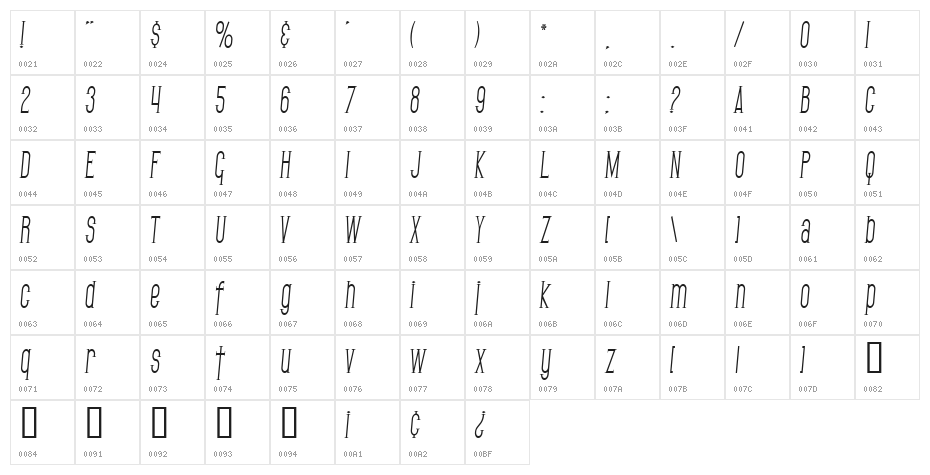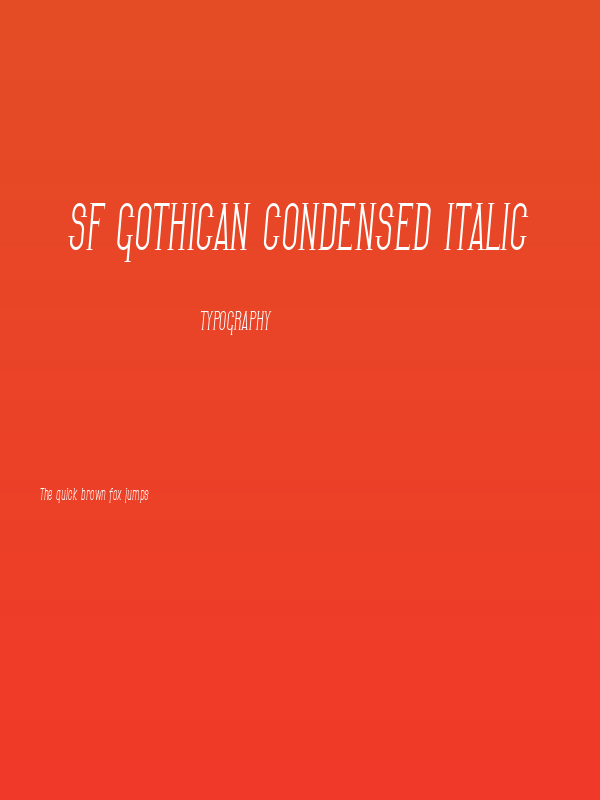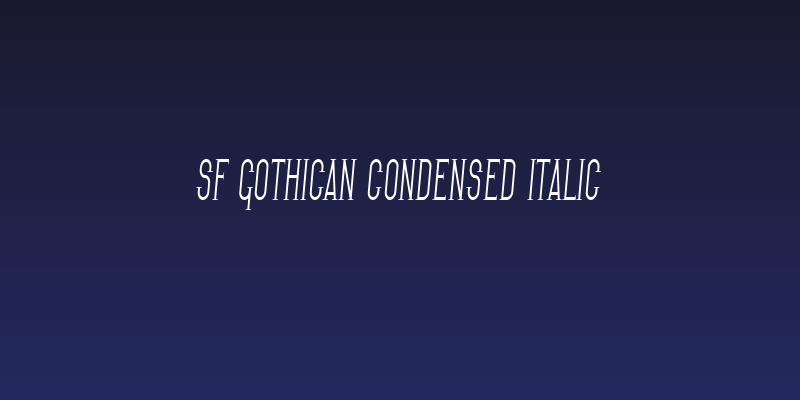
SF Gothican Condensed Italic Font
SF Gothican Condensed Italic Description
This font features a condensed and italicized style, characterized by its tall, narrow letterforms and slight slant to the right. The strokes are consistent in thickness, providing a uniform appearance across all characters. The uppercase letters are particularly elongated, giving a sense of elegance and sophistication. The lowercase letters maintain a similar narrowness, ensuring readability while preserving the overall aesthetic. Numbers are aligned with the uppercase letters in height, maintaining the font's cohesive look. Special characters are designed with the same attention to detail, fitting seamlessly into the font's style. This font's condensed nature makes it ideal for space-saving applications without sacrificing legibility.
| Proposed Projects | Ideal for editorial design, branding, and packaging where space is limited but style is essential. |